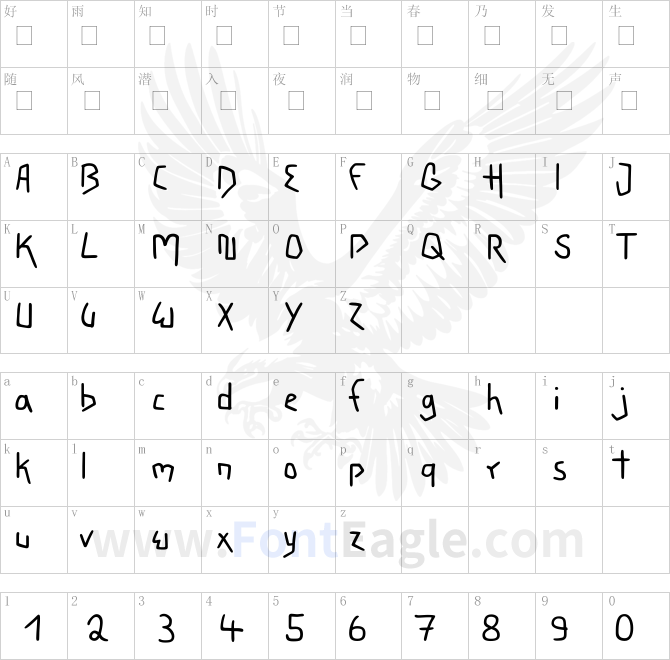
- Font name:PT Script Earthquake
PT-Script-Earthquake is a great font, widely used in graphic design, single-page menu design, poster design and other fields, and is deeply loved by designers.PT-Script-Earthquake download.